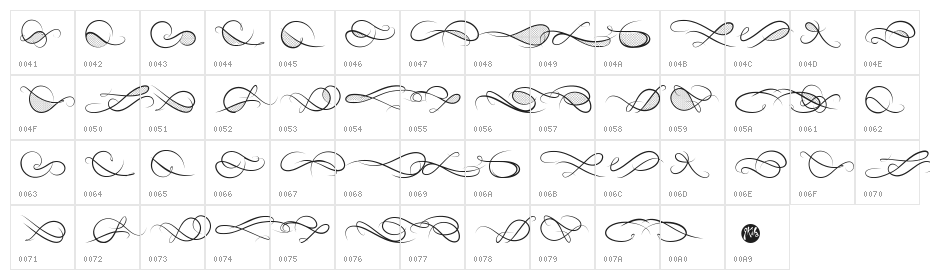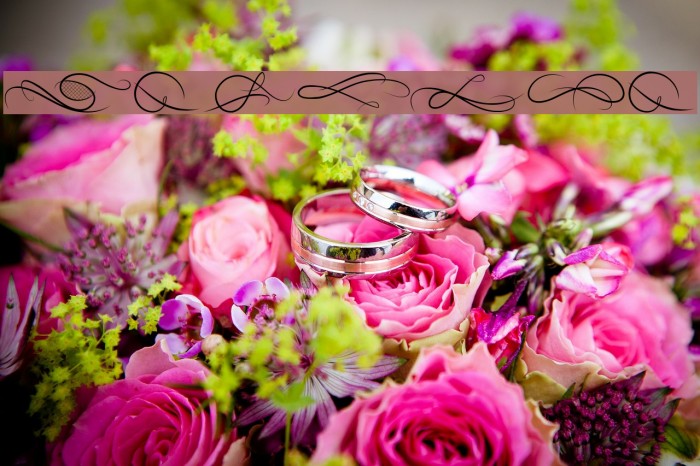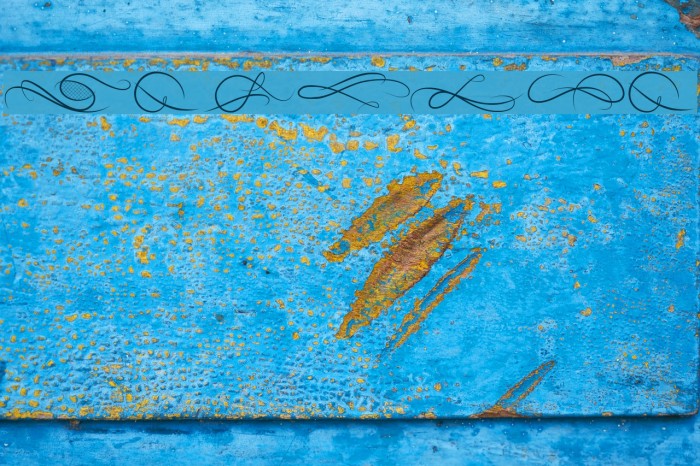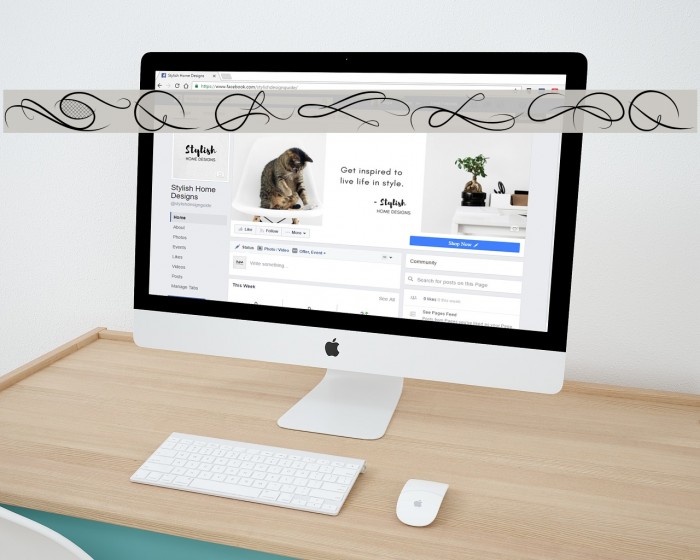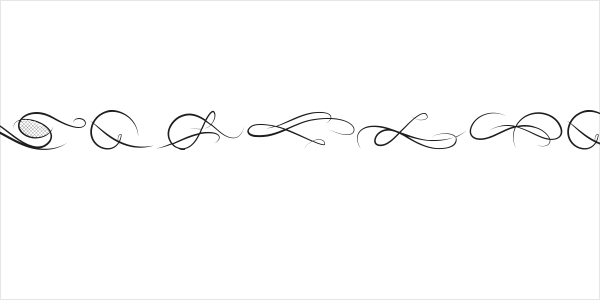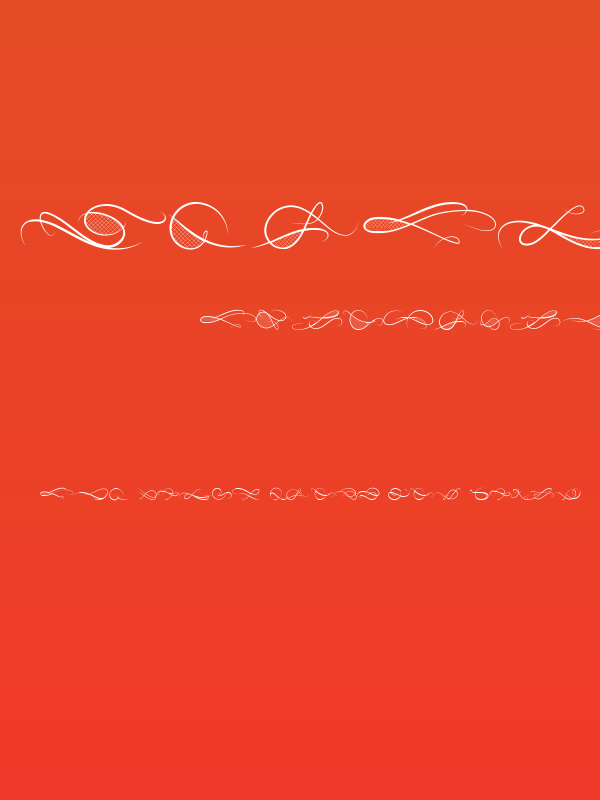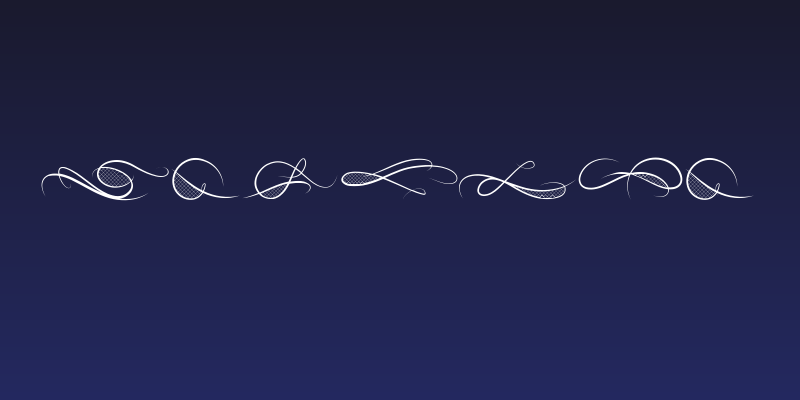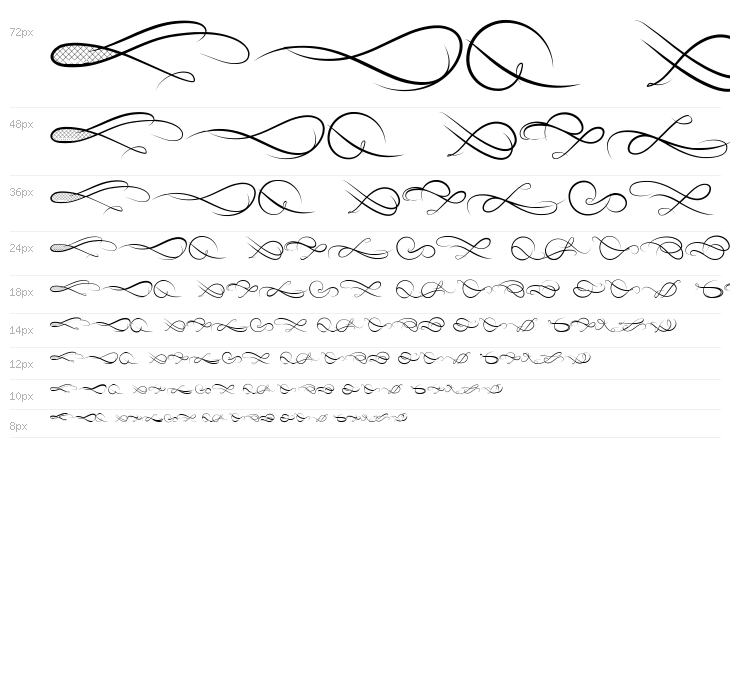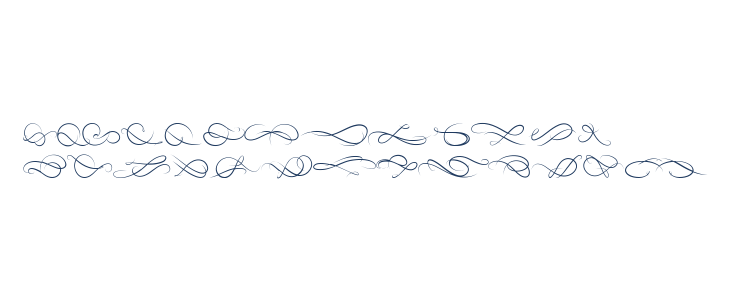
Vertige Font
Vertige Description
This design features an intricate and decorative style, characterized by elaborate swirls and flourishes. The elements are highly ornamental, resembling calligraphic embellishments rather than traditional letterforms. Each piece is unique, with flowing lines that intertwine and loop, creating a sense of elegance and sophistication. The design is reminiscent of vintage or classical motifs, often used in decorative borders or as artistic accents. The overall appearance is delicate and refined, suitable for projects that require a touch of luxury and artistry.
| Use Case | Logos, Decorative elements |
| Proposed Projects | Ideal for wedding invitations, luxury branding, decorative borders, and artistic accents. |